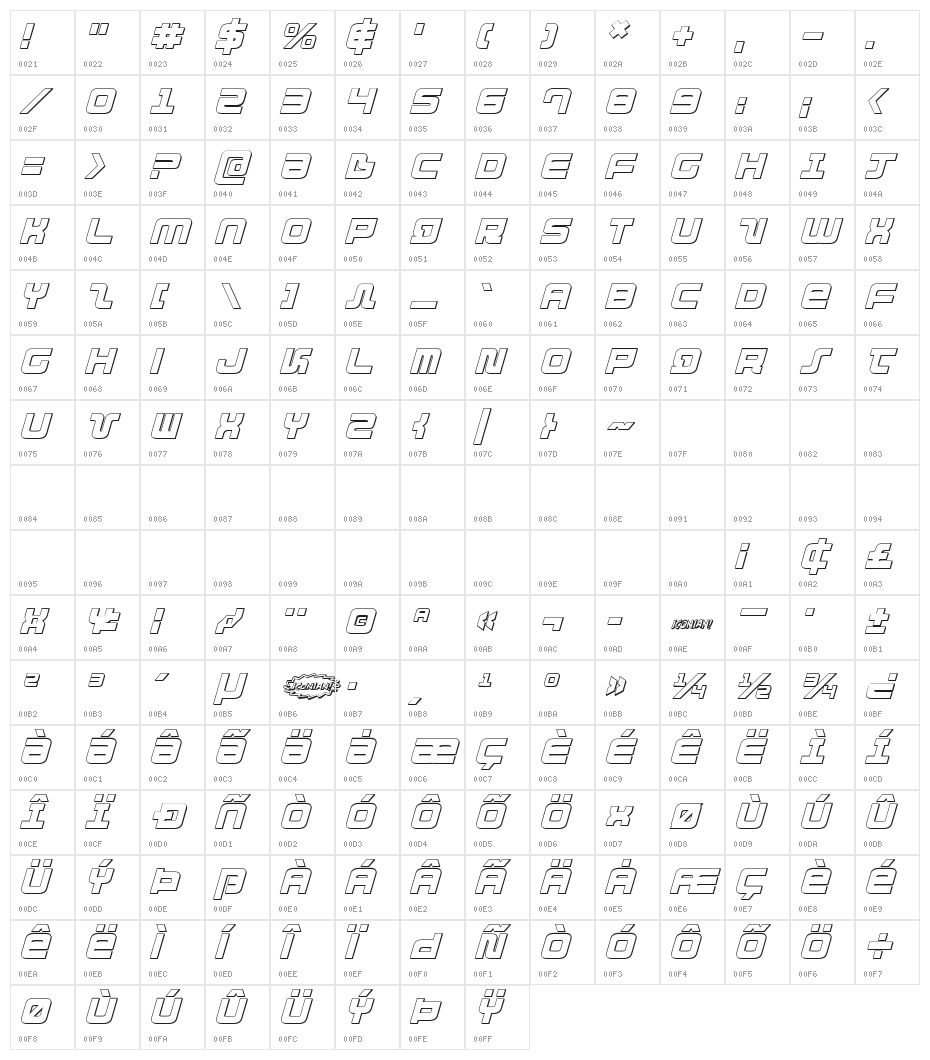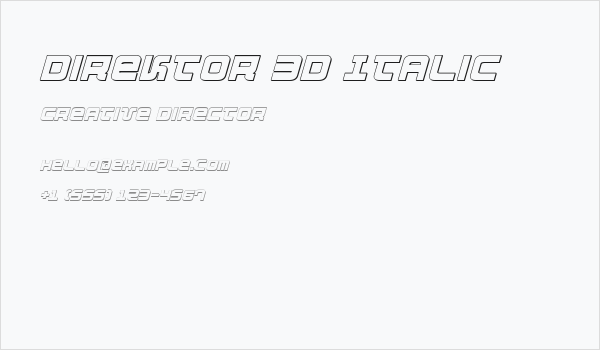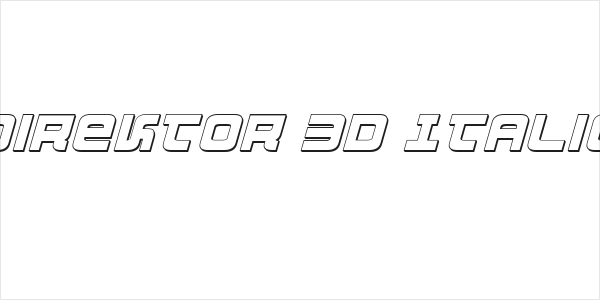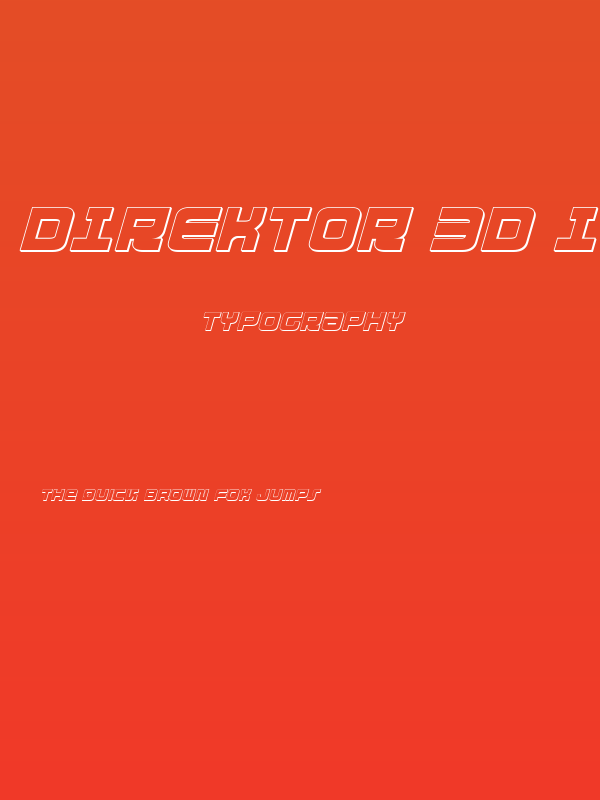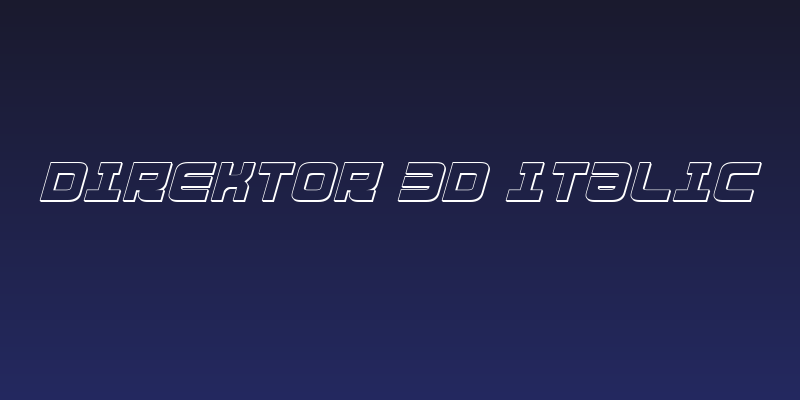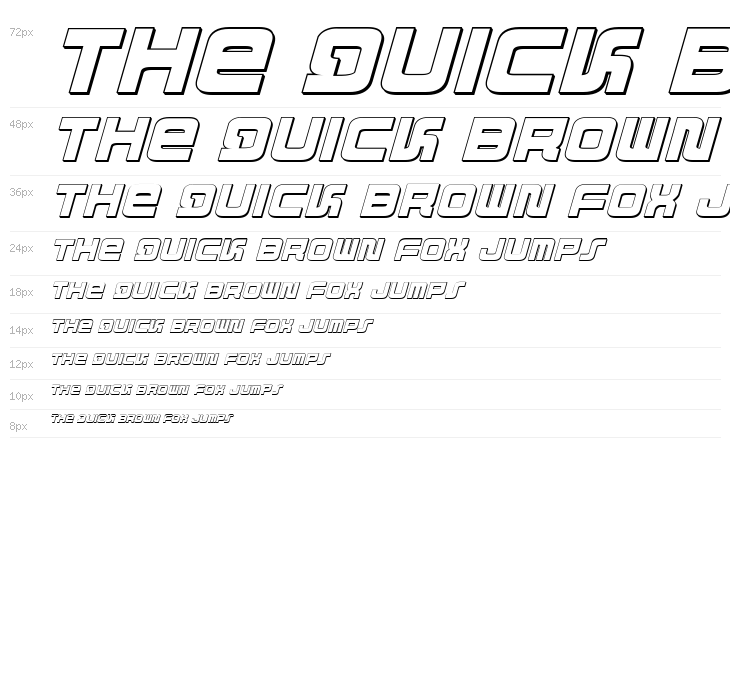
Direktor 3D Italic Font
Direktor 3D Italic Description
This font features a bold, three-dimensional design with an italic slant, giving it a dynamic and futuristic appearance. The characters are outlined, creating a hollow effect that enhances the 3D illusion. The uppercase and lowercase letters maintain a consistent style, with sharp angles and geometric shapes. The numerals and special characters follow the same design principles, ensuring uniformity across all glyphs. This font is ideal for projects that require a modern and eye-catching typeface.
Proposed ProjectsSuitable for branding, posters, video game titles, and any design requiring a modern, dynamic look.